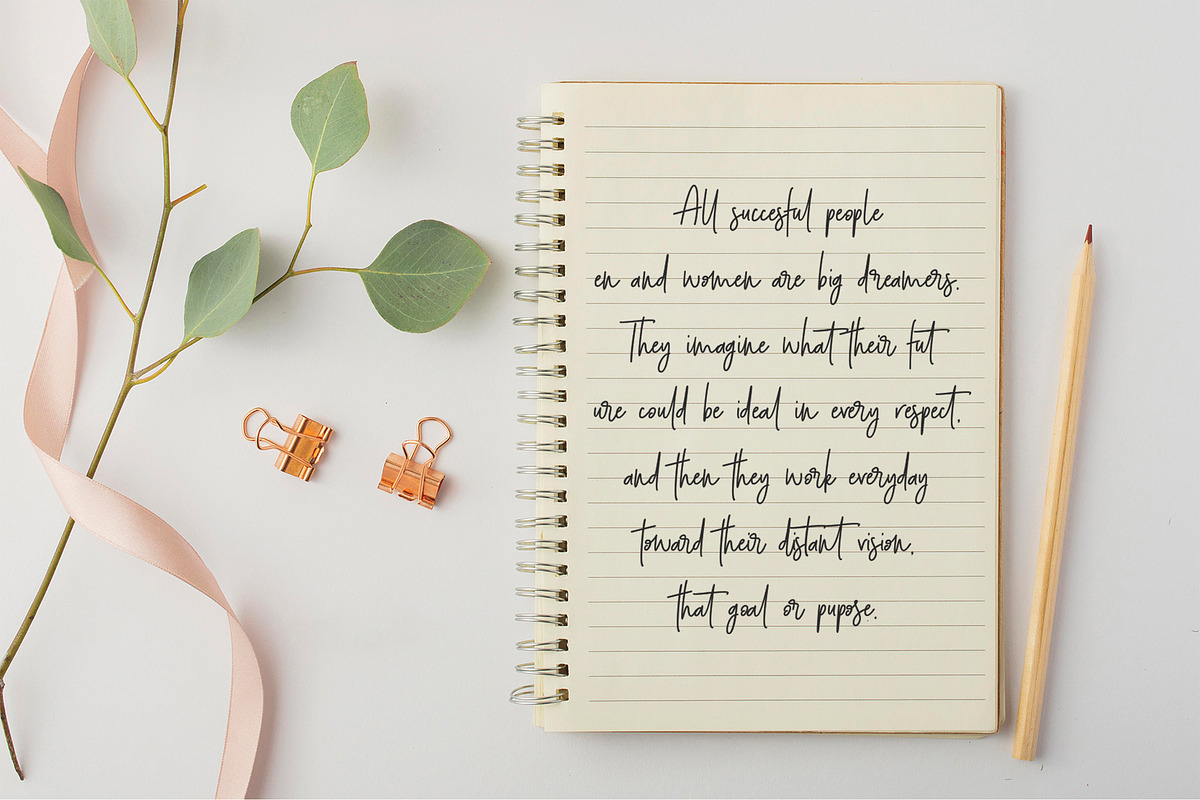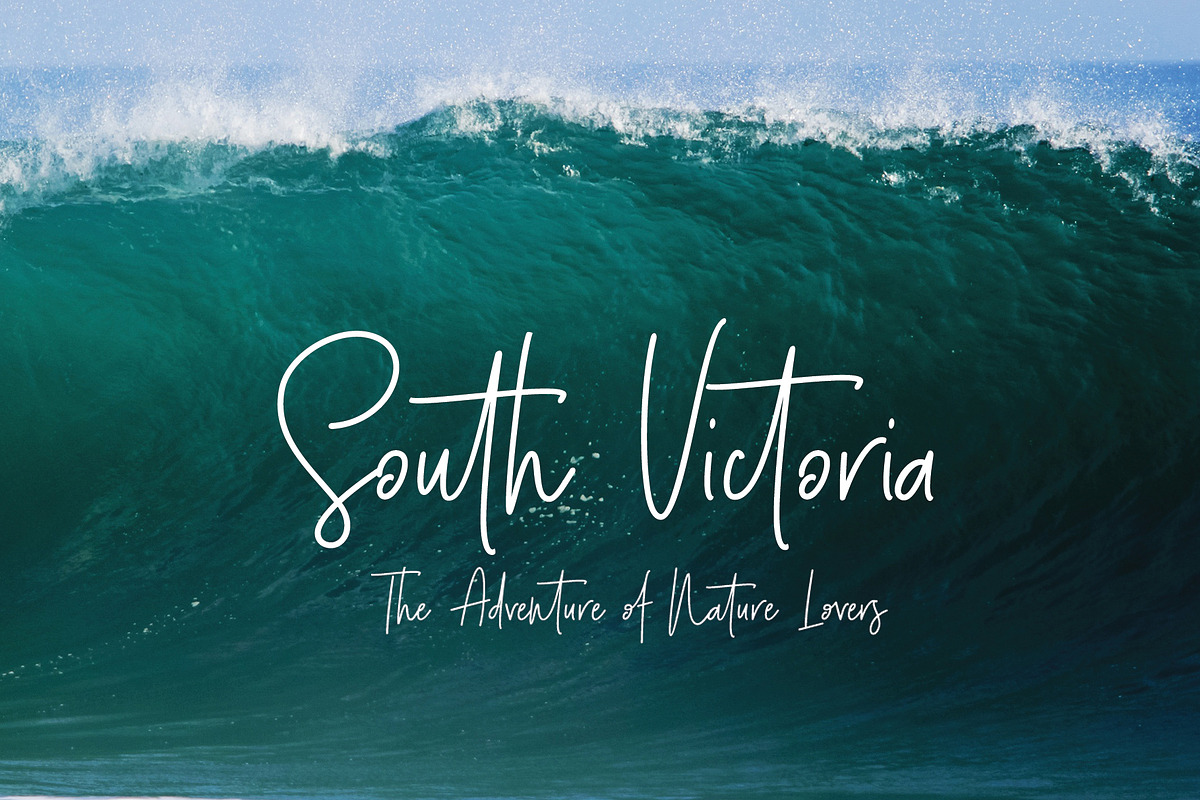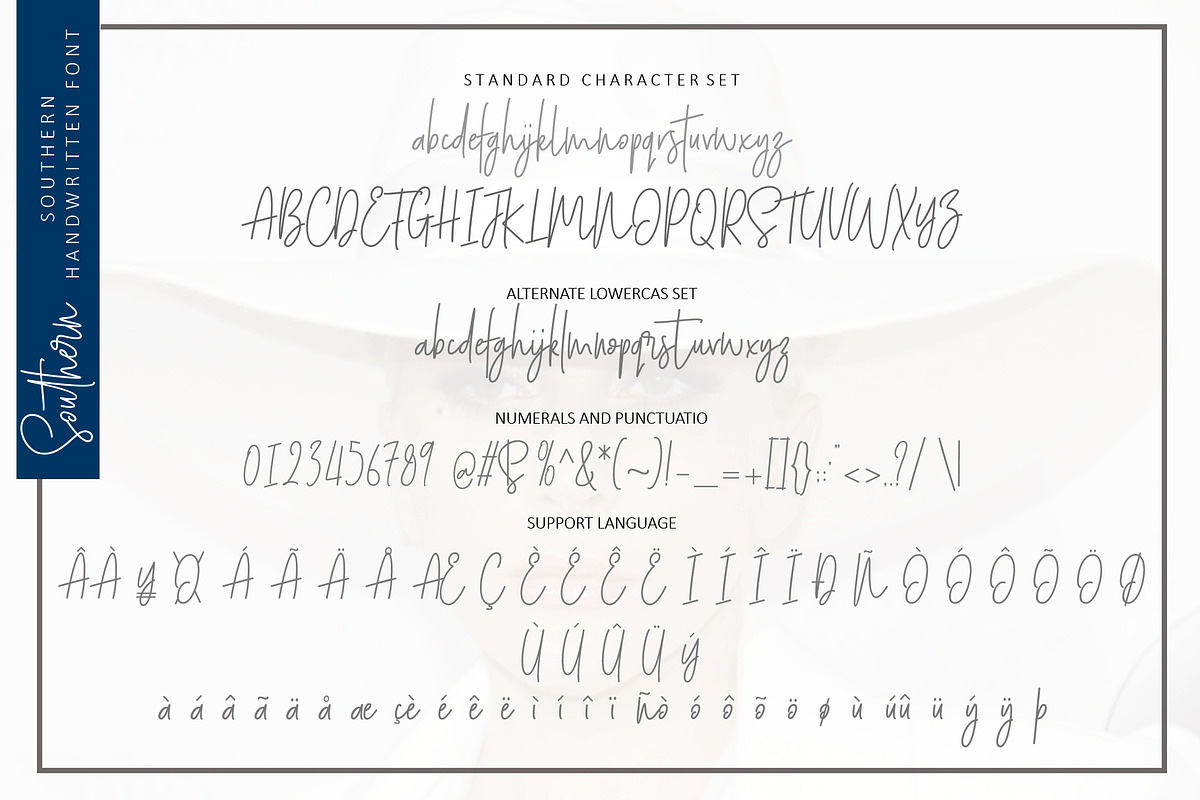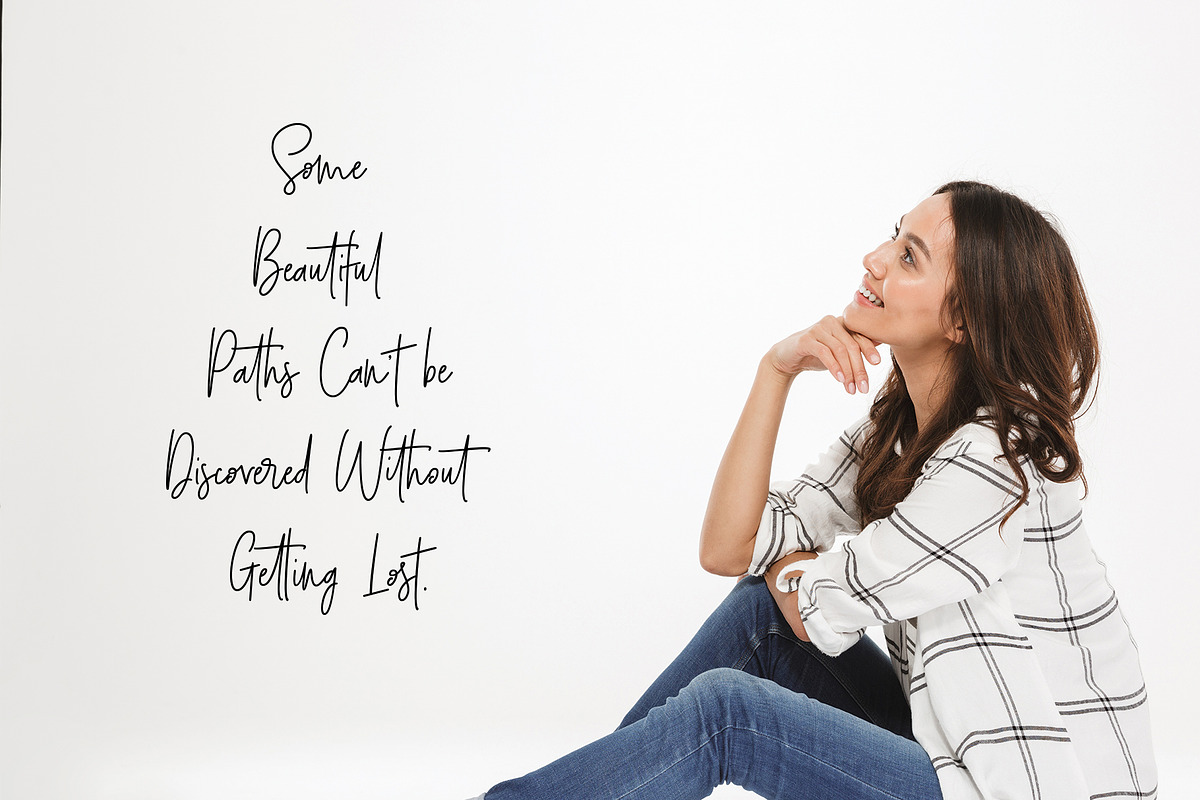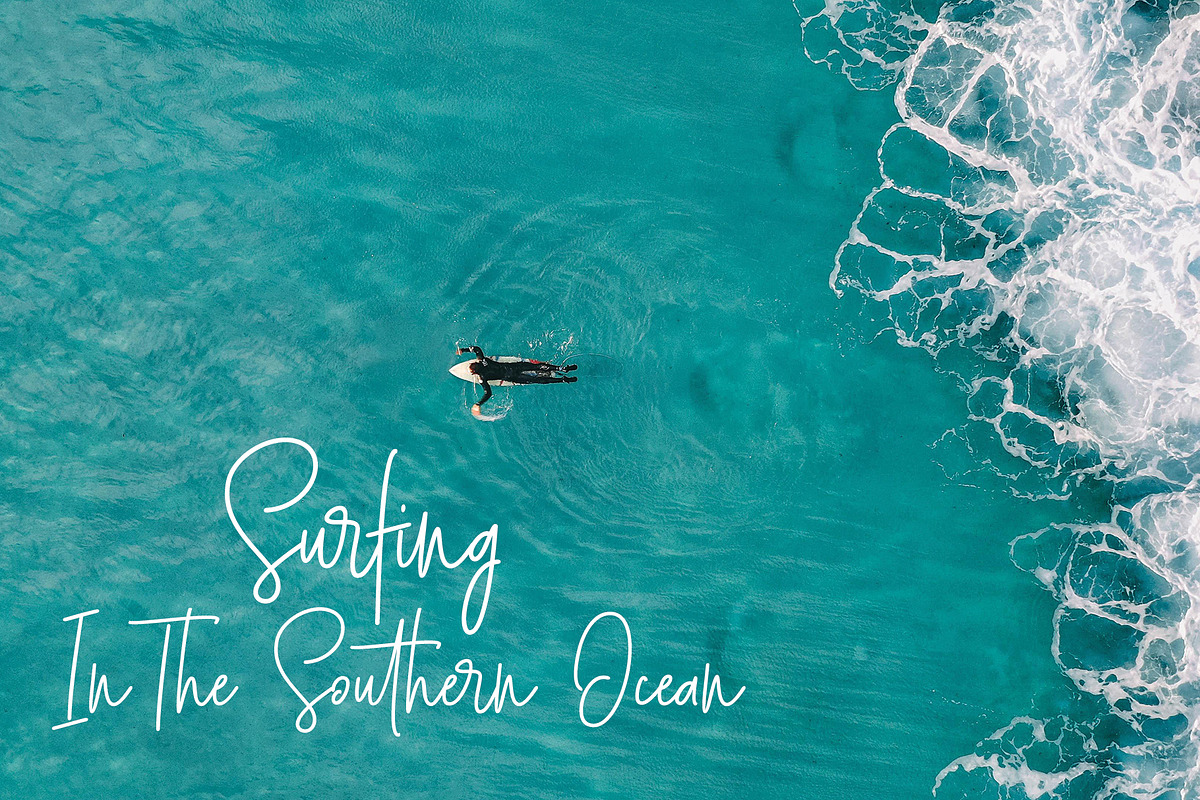
Southern is new handwriting script. Add a little sparkle to your design with Southern Scrip. A clean & classy signature-style font set, perfect for creating authentic hand-lettered text quickly & easily.
With its elegant charm and extra rocking bottom line, ‘Southern’ has an unmistakable charm; Suitable for logo, header, company or personal branding, product packaging, card & signature.